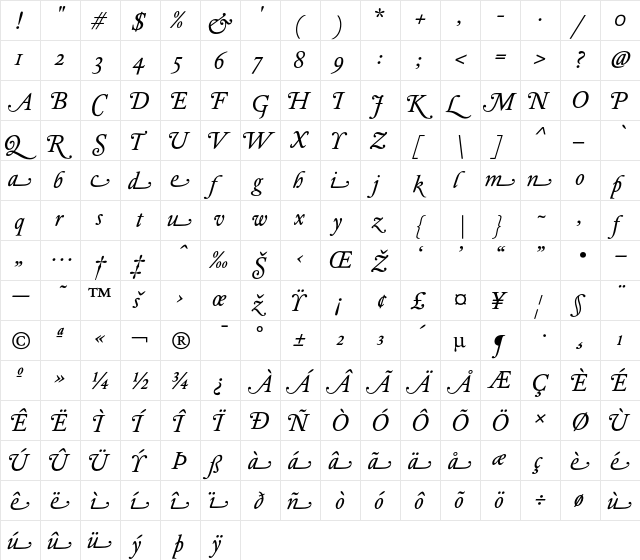
DTLElzevirTBookSwash Italic
Design Context for DTLElzevirTBookSwash Typeface
DTLElzevirTBookSwash flows with the natural rhythm of handwritten lettering, making it ideal for designs that call for warmth and personal expression.
Font Pairing: Combine DTLElzevirTBookSwash with a simple geometric sans for maximum contrast — the tension between flowing curves and clean structure is a classic typographic pairing.
Pro Tip: Pair DTLElzevirTBookSwash with a clean sans-serif for supporting text. The contrast between fluid script and geometric structure creates an elegant typographic hierarchy.